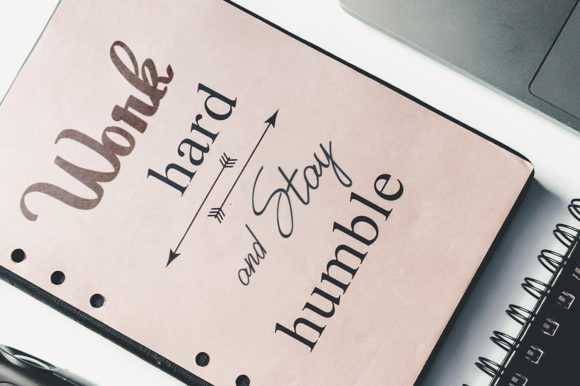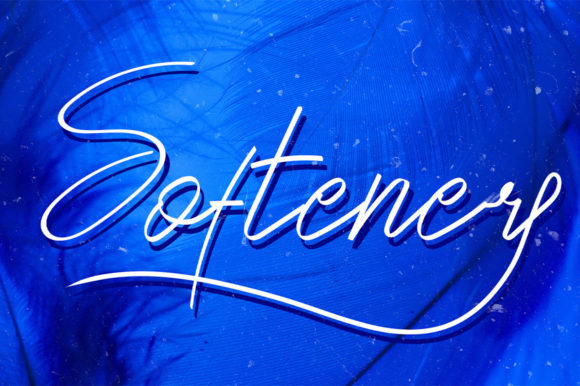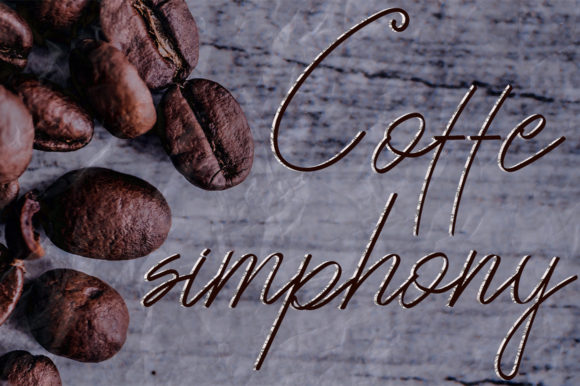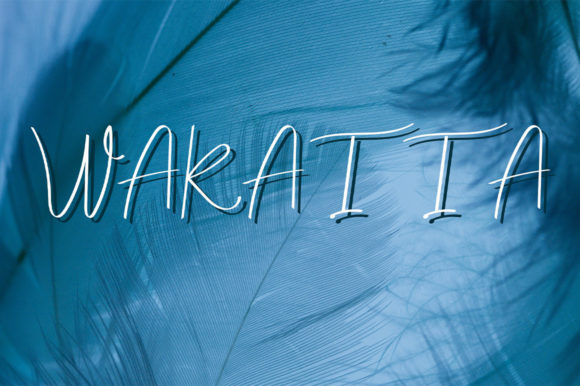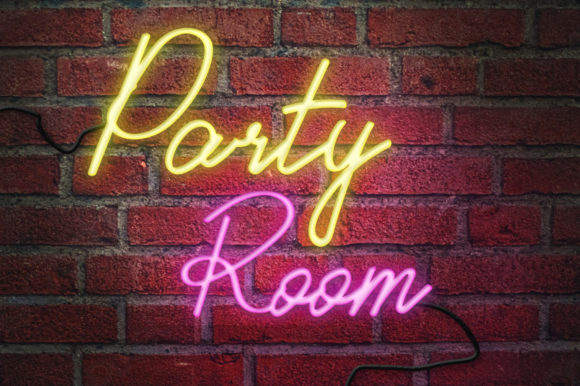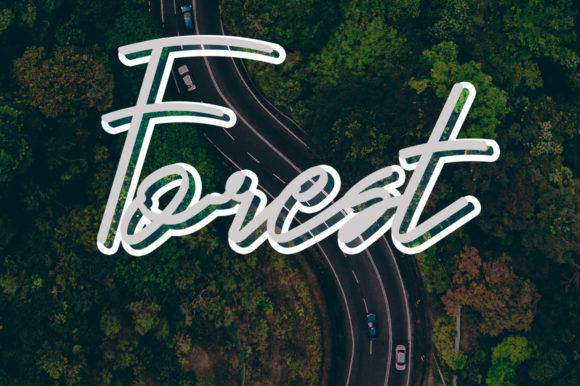
The Magic of Black Visual Font: A Designer’s New Best Friend
I’ll never forget the time I was working on a wedding invitation project, and my client asked for a font that was elegant, sophisticated, and utterly unique. I scoured the internet, tried out dozens of fonts, but nothing seemed quite right. That was until I stumbled upon Black Visual Font. ✨
This stunning script font has been a game-changer for me, and I’m excited to share its beauty with you. In this article, we’ll dive into the world of Black Visual Font, exploring its features, uses, and some helpful tips and tricks.
An Honest Review of Black Visual Font
- ✨ Thin lettered and graceful script style that’s perfect for elegant designs
- 💕 Beautifully crafted to add a touch of sophistication to any project
- 🎨 Versatile and can be used for a wide range of design projects, from wedding invitations to social media posts
While Black Visual Font is an amazing font, there are a few things to keep in mind: 🤔
- ⚠️ Some letters may not have perfect symmetry, which can be a minor issue for certain designs
- ⚠️ May not be the best choice for body text, as it’s designed for display purposes
A Practical Guide to Using Black Visual Font
- Experiment with OpenType features, such as glyphs and stylistic alternates, to add some extra flair to your design
- Choose the font from the font menu and experiment with OpenType features, such as ligatures and swashes
The Designer Inspiration Behind Black Visual Font
Black Visual Font was designed with elegance and sophistication in mind. The designer, inspired by classic calligraphy and modern typography, crafted a font that’s both beautiful and versatile. While we may not know the exact story behind the font, it’s clear that Black Visual Font was created with love and attention to detail.
Q: What type of projects is Black Visual Font best suited for?
A: Black Visual Font is perfect for elegant designs, such as wedding invitations, stationery, social media posts, and more.
Q: Is Black Visual Font available in different font weights?
A: Currently, Black Visual Font is available in a single weight. However, the designer may release additional weights in the future.